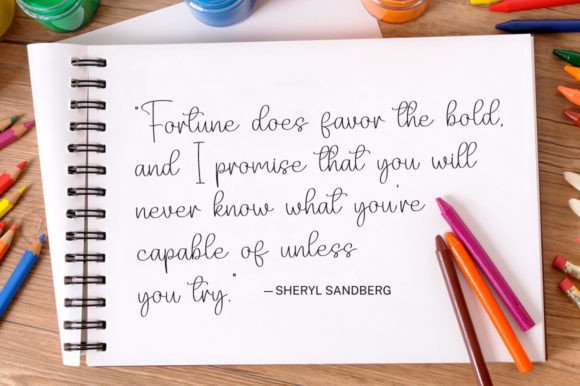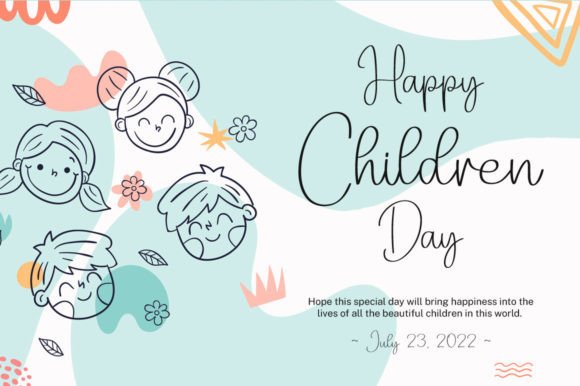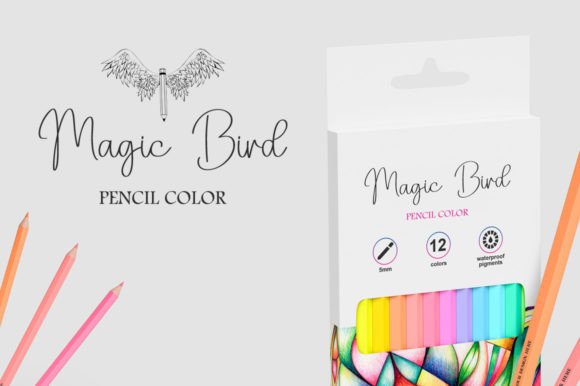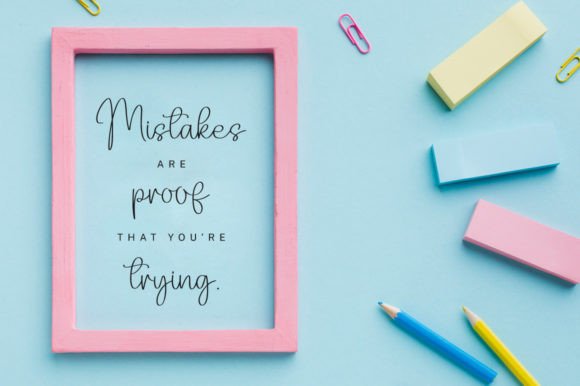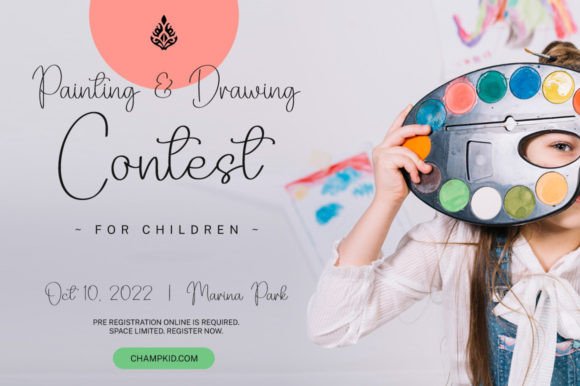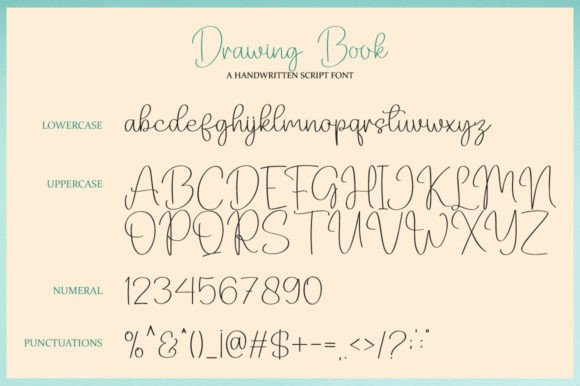
The Charm of Drawing Book Font: A Designer’s Delight
I still remember the time I was working on a project for a children’s book, and I was struggling to find the perfect font to bring the story to life. The client wanted something that was both playful and elegant, but I just couldn’t seem to find the right fit. That’s when I stumbled upon the Drawing Book font, and it was love at first sight! ✨
Drawing Book is a lovely and timeless handwritten font that has become a staple in my design toolkit. Its unique charm and character make it the perfect choice for creating eye-catching logos, branding, and quotes that stand out from the crowd.
- ✨ Unique and elegant handwritten style that’s perfect for creative projects
- ✅ Extensive character set, including OpenType features and glyphs
- ✅ Works beautifully for both digital and print projects
While Drawing Book is an amazing font, there are a few things to keep in mind: 🤔
- ⚠️ Some users may find the font a bit too ornate for very simple designs
- ⚠️ May not be the best choice for very long blocks of text, as it can be a bit too decorative
The Backstory of Drawing Book Font
While the origins of Drawing Book font are shrouded in mystery, it’s clear that it was designed with love and care. The font’s unique charm and character are reminiscent of a bygone era, when handwriting was an art form. Whether the designer was inspired by vintage books, antique letters, or simply their own handwriting, the result is a font that’s both timeless and modern.
Q: What type of projects is Drawing Book font best suited for?
A: Drawing Book font is perfect for creative projects, logos, branding, quotes, and social media graphics. It’s also great for kids’ projects, party invitations, and whimsical designs.
Q: Is Drawing Book font available in different languages?
A: Yes, Drawing Book font supports multiple languages and includes an extensive character set. However, be sure to check the font’s language support to ensure it covers your specific needs.
Q: Can I use Drawing Book font for body text?
A: While Drawing Book font is beautiful, it’s not recommended for long blocks of body text. It’s best used for headlines, titles, and short paragraphs where its unique charm can shine.